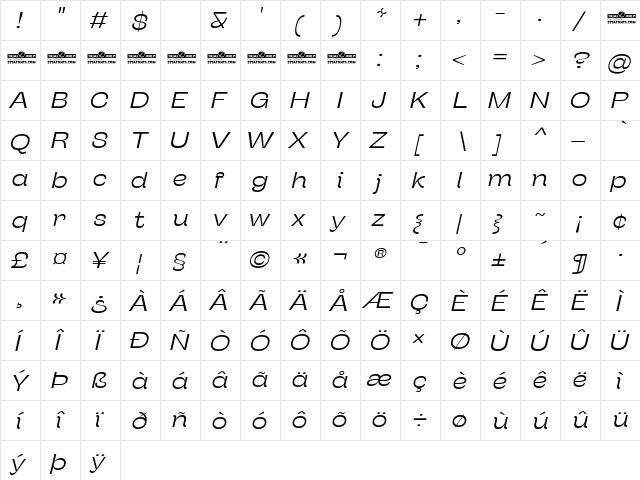
Stinger Wide Trial Light Italic
| Foundry | Studio Kmzero & Zetafonts |
| Designer | Cosimo Lorenzo Pancini |
Design Context for Stinger Wide Trial Typeface
Stinger Wide Trial offers clean, dependable letterforms without strong stylistic allegiance, making it a practical choice for designers who need flexibility. The dynamic lean of this cut emphasises speed and emphasis in any layout. The delicate stroke weight brings airiness and refinement to layouts.